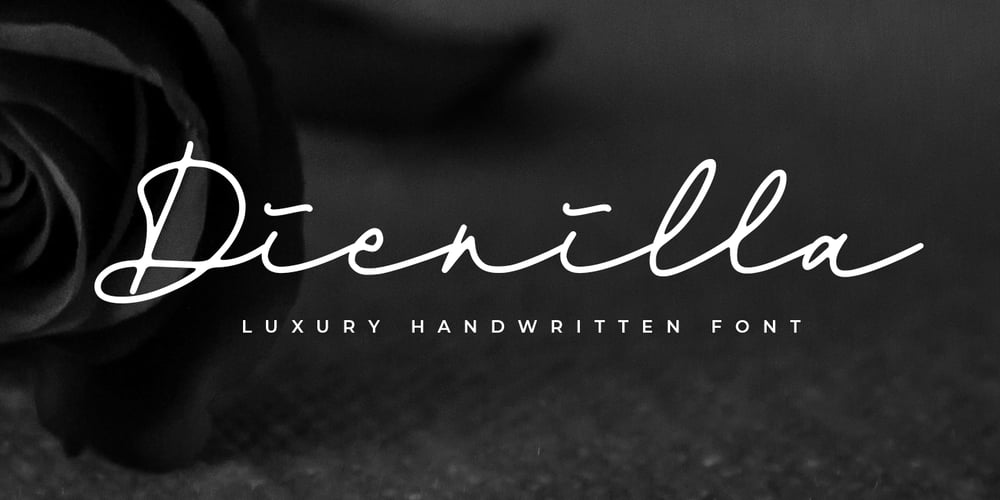
Dienilla Font Family was designed by Abo Daniel and published by Abo Daniel. Dienilla contains 2 styles and family package options. Dienilla is a luxury handwritten font that comes in 3 weights: Thin, Regular and Bold.Dienilla is great for branding, logos, wedding invitations, cards, quotes, T-shirt design, and many other projects that need a simple but elegant feel.Dienilla has multi-lingual support and is PUA encoded.I created 2 styles of ending swashes to make this product so perfect and very easy to use.To access the first style you can add underscore twice after the lowercase character:for example : a _ _ and to access another one you can add underscore twice and put a 1 after the lowercase character:for example : a _ _1Dienilla is really beauty, and very very user friendly.Hope you love it, and let’s grab it…